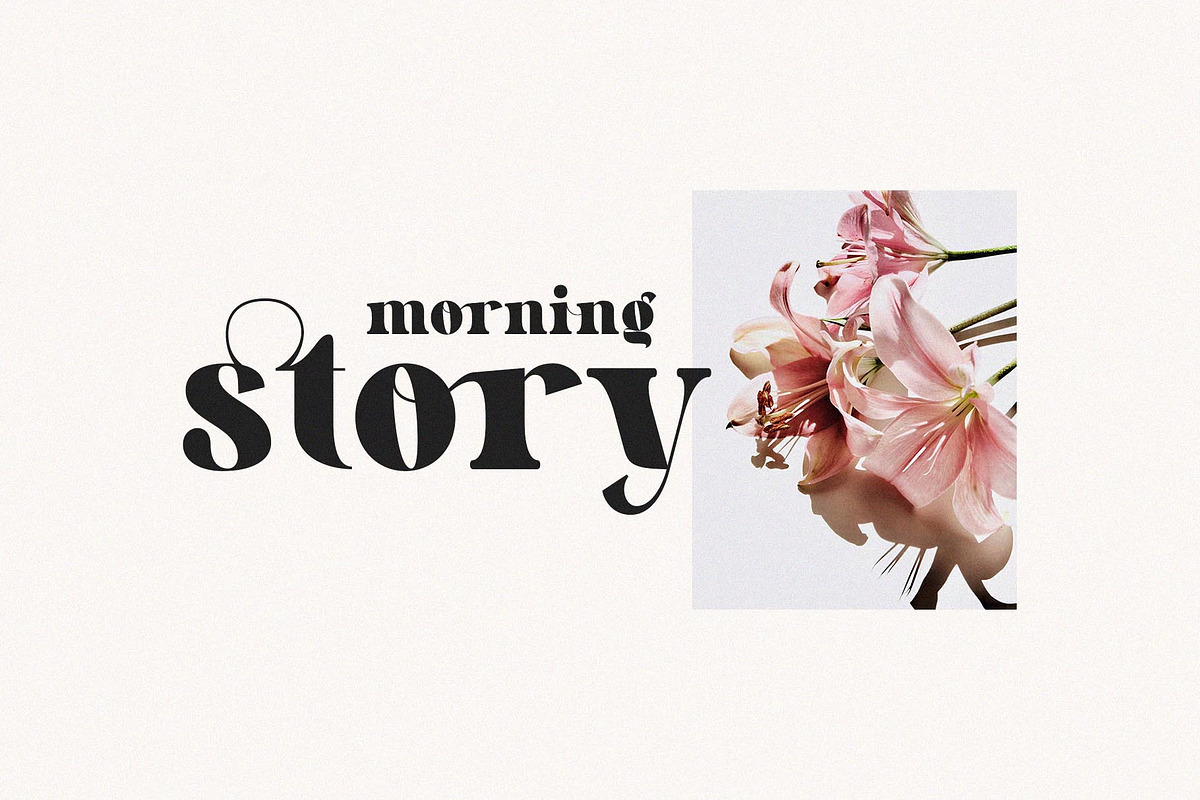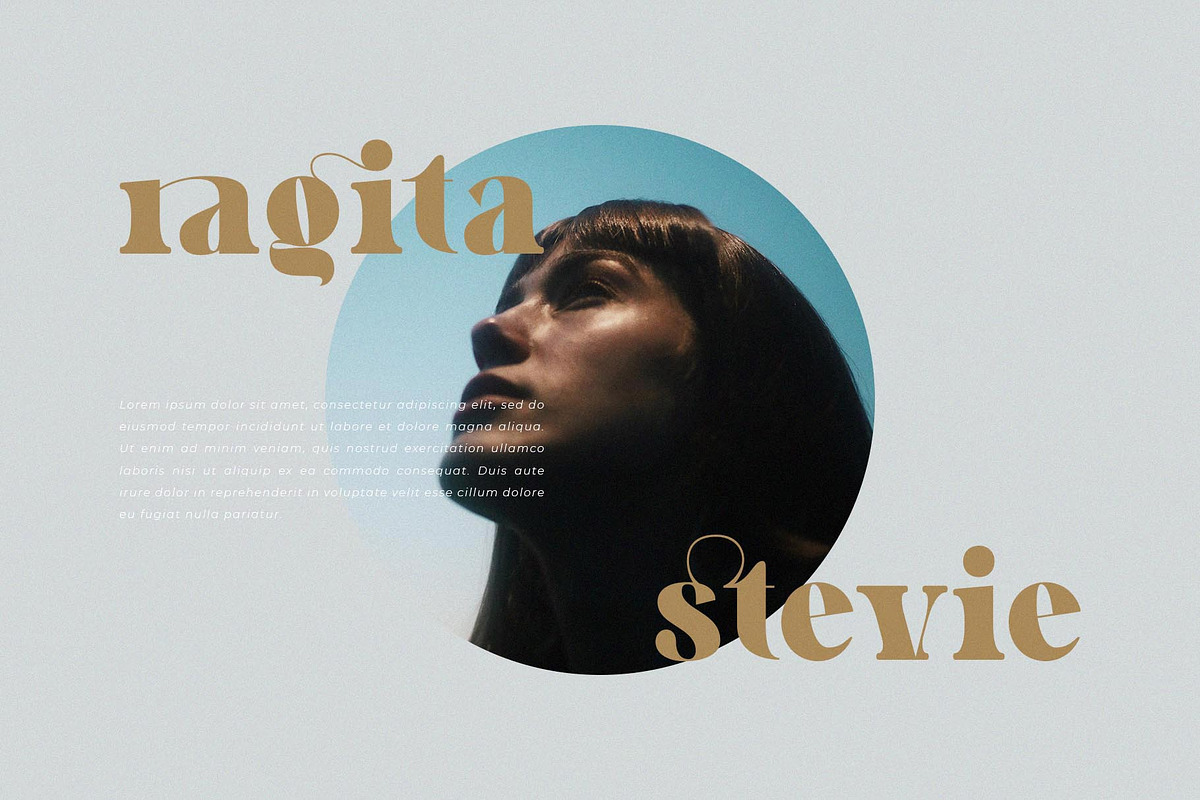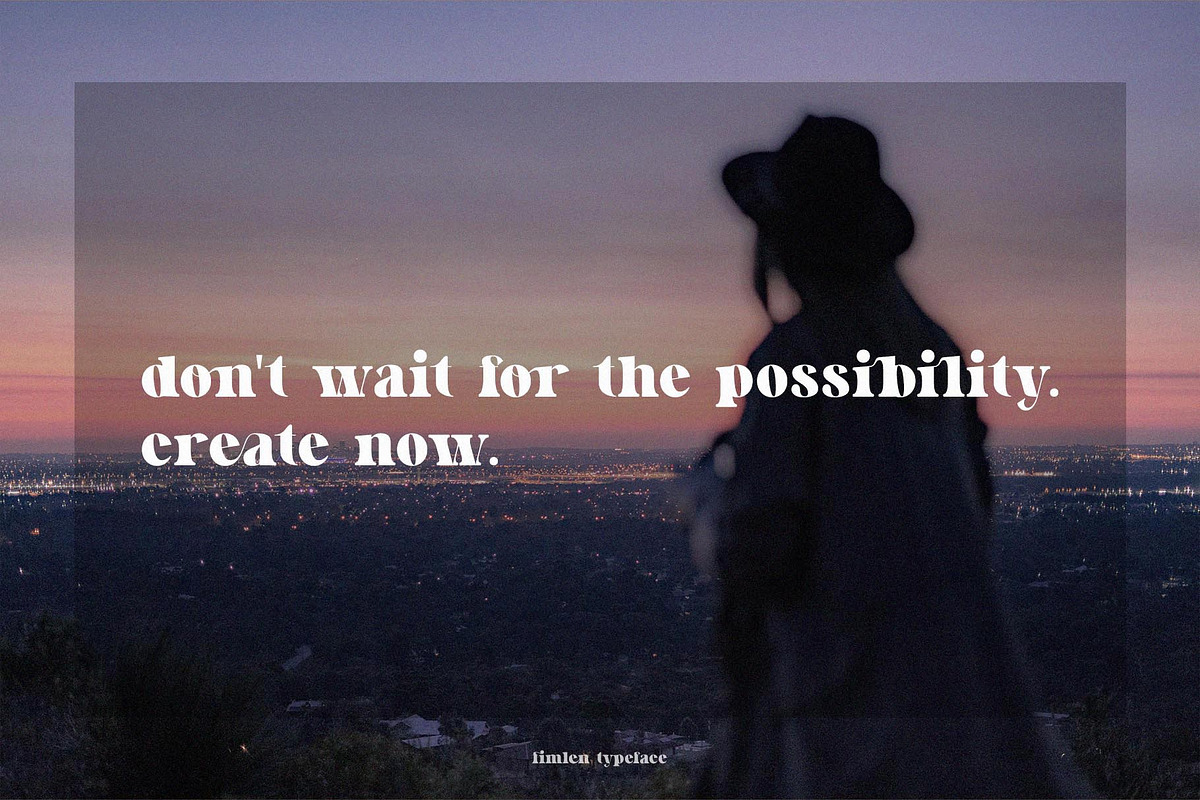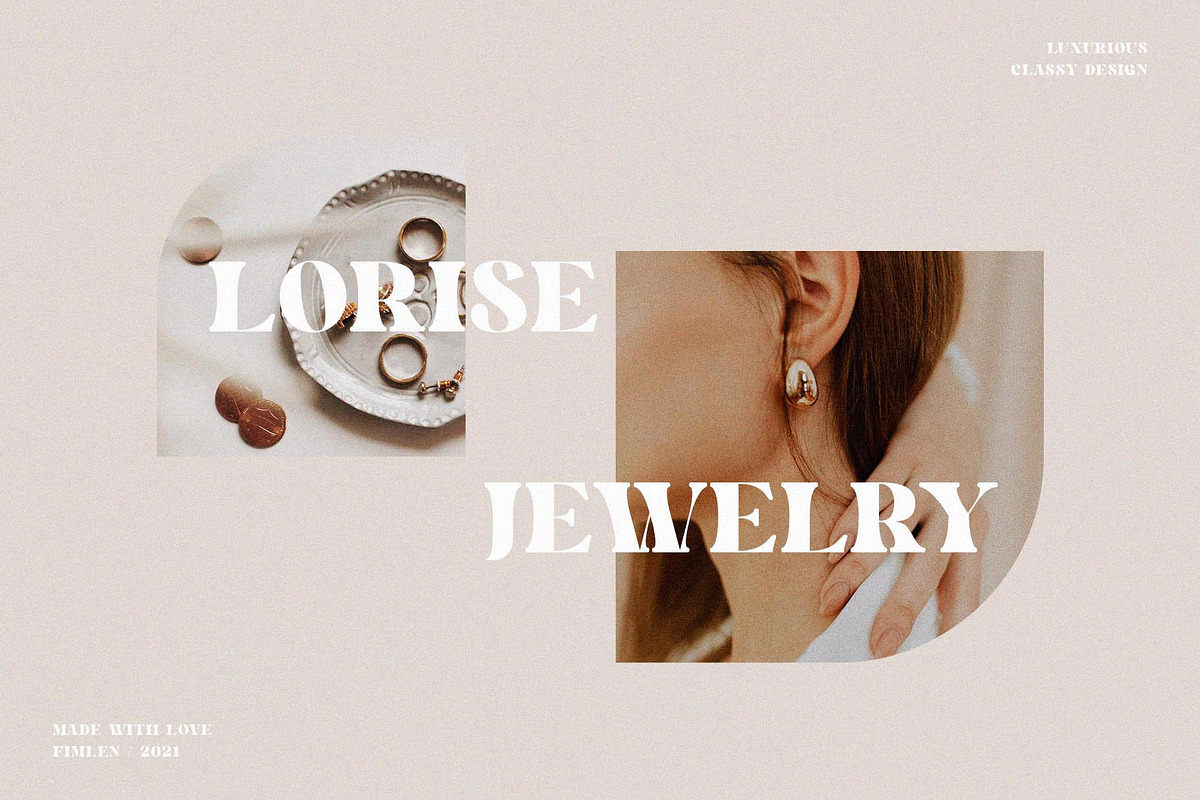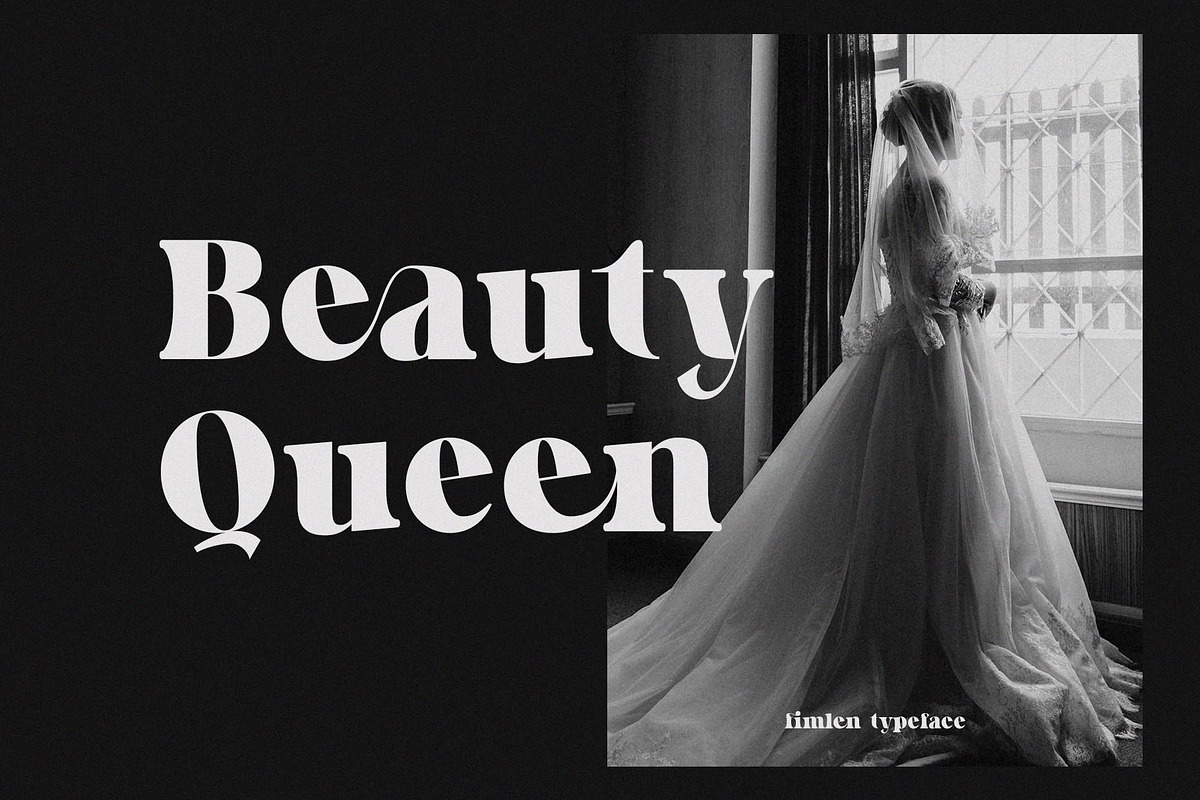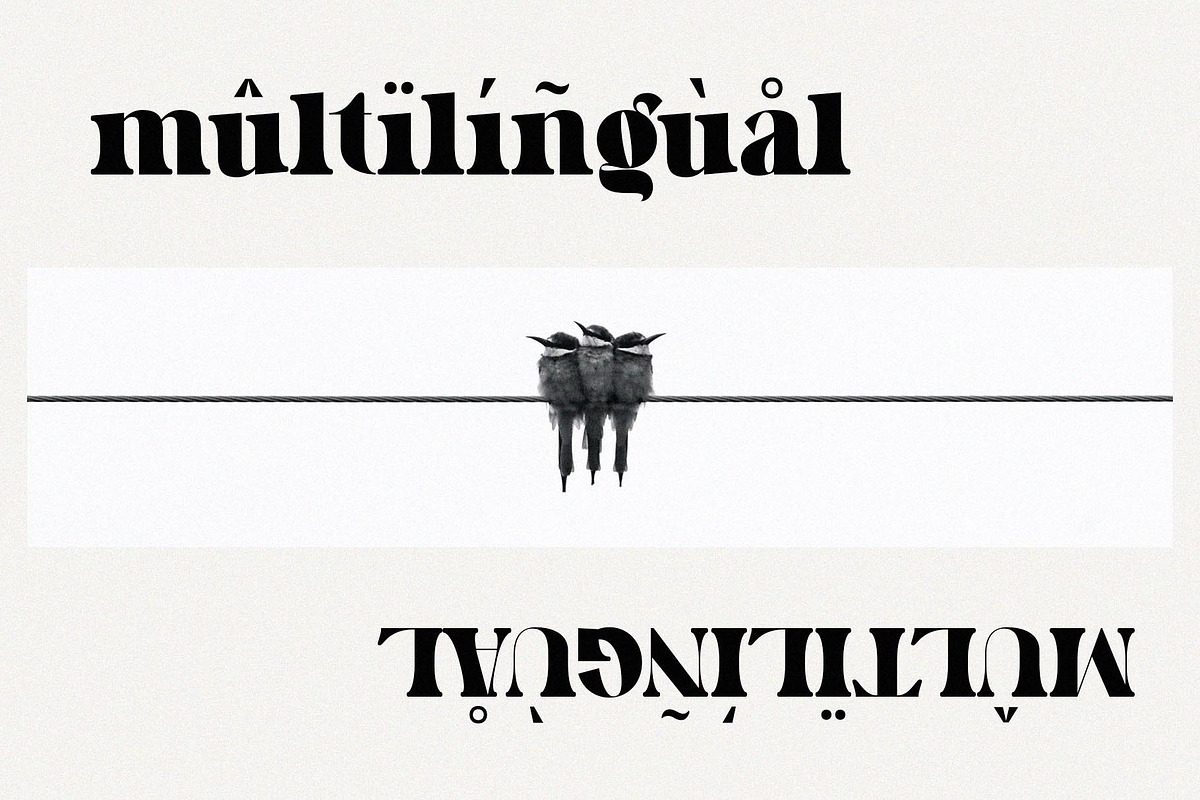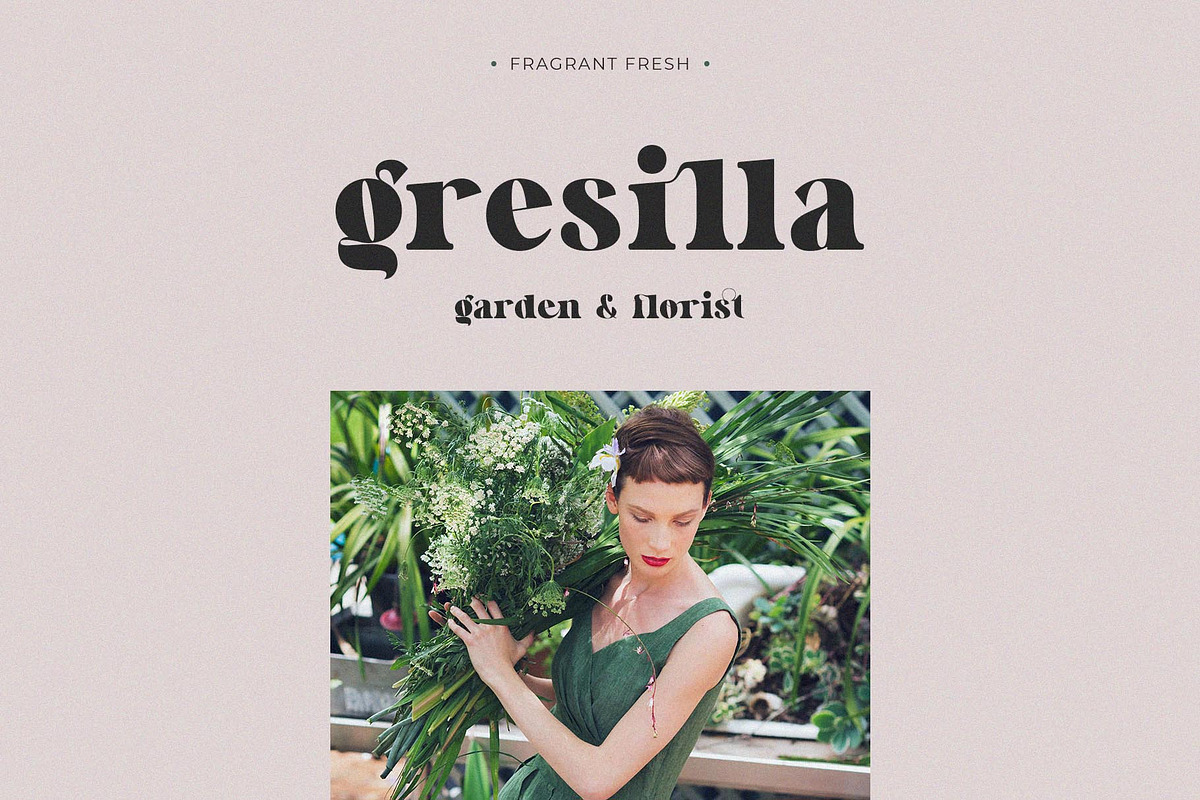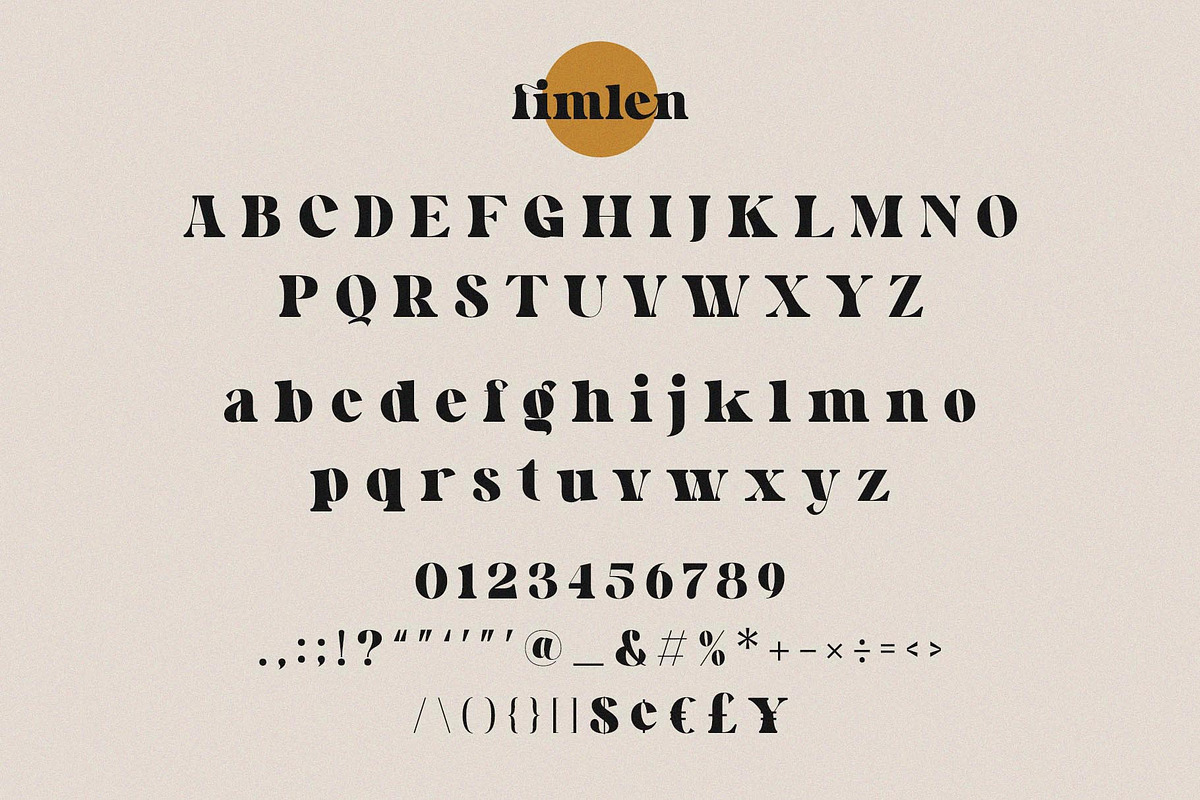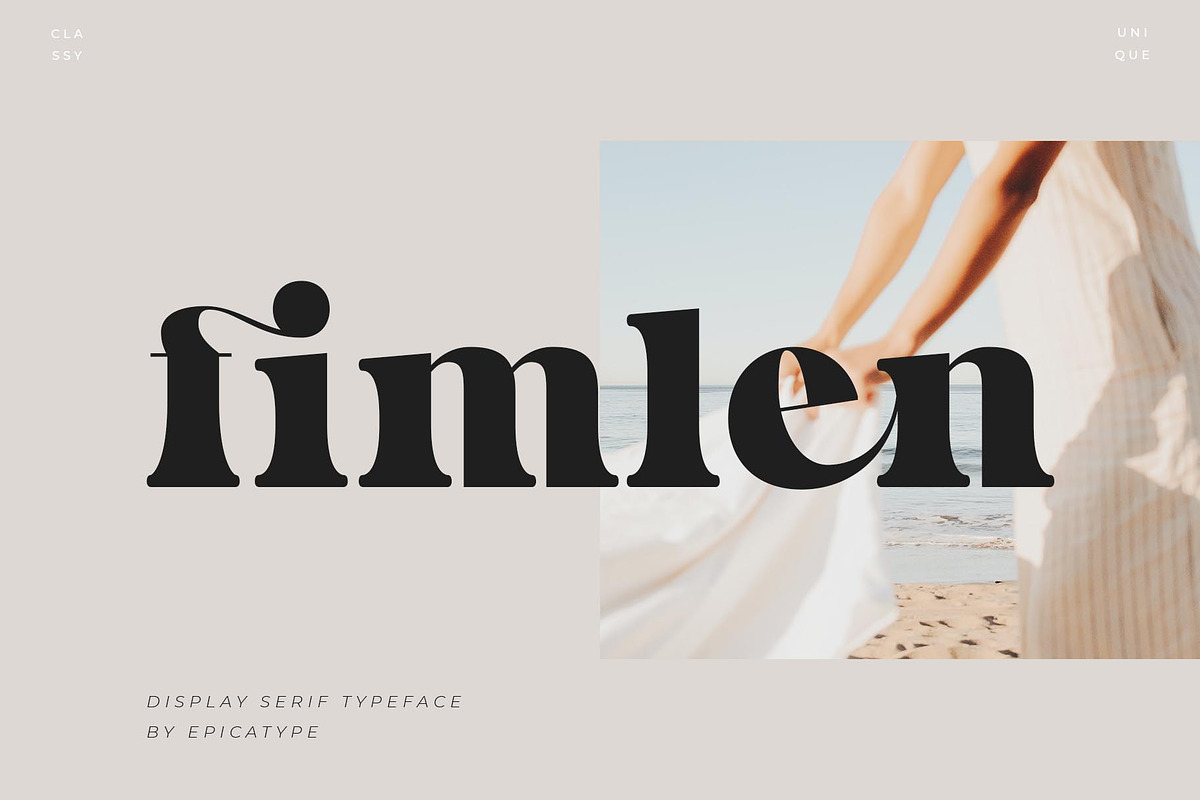
Fimlen - Display Serif
Hello, new display serif called Fimlen!!! Fimlen is a calssy and luxury typeface. Works great for logos, magazine, social media. It come with a unique lower and uppercase plus numbers, punctuation & multilingual letters, alternates and ligatures.